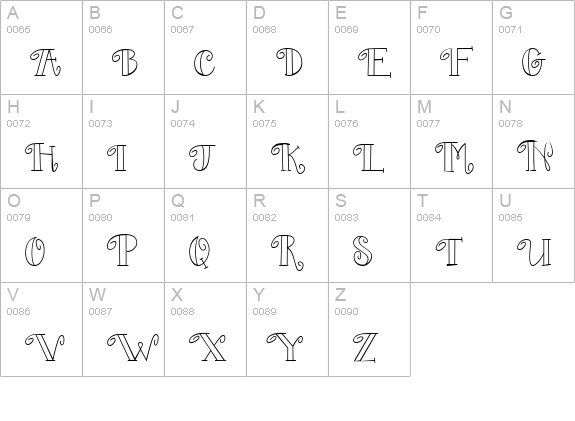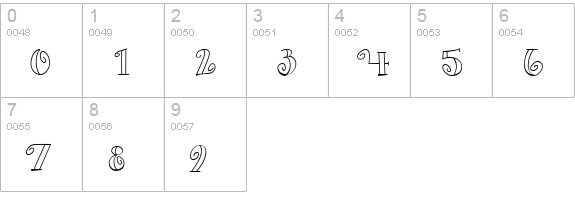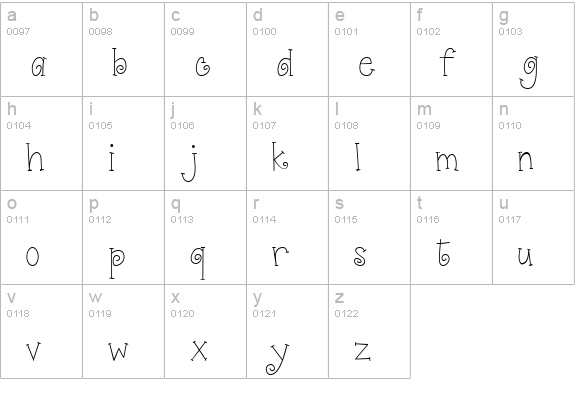
Introducing CK Pink font, a charming and elegant typeface perfect for adding a touch of sophistication to your designs. This font features delicate curves and stylish letterforms that exude a sense of beauty and grace. Whether you're working on invitations, branding, or any other creative project, CK Pink font is sure to make a lasting impression. The best part? CK Pink font is available for free download at FontsMarket.com. So go ahead and enhance your designs with this stunning typeface without breaking the bank. Embrace the beauty of CK Pink font and let your creativity shine!